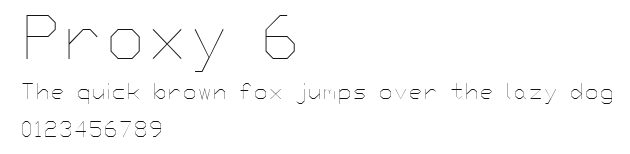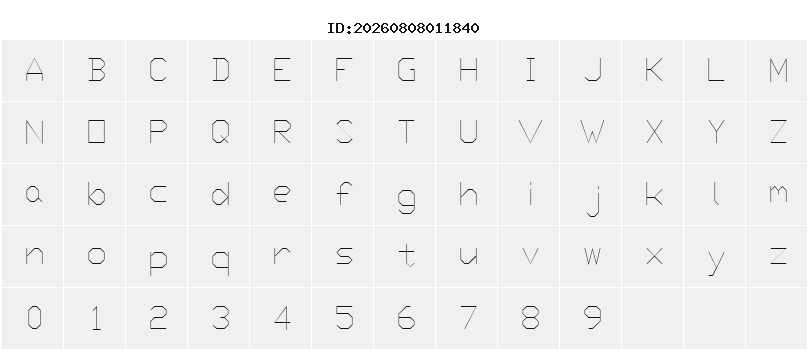
• Font Name: Proxy 6
• Full Font Name: Proxy 6
About Proxy 6.ttf
Proxy 6.ttf is a modern, elegant sans-serif font designed for ultimate readability and visual harmony. Perfect for branding, headlines, web design, and print materials.